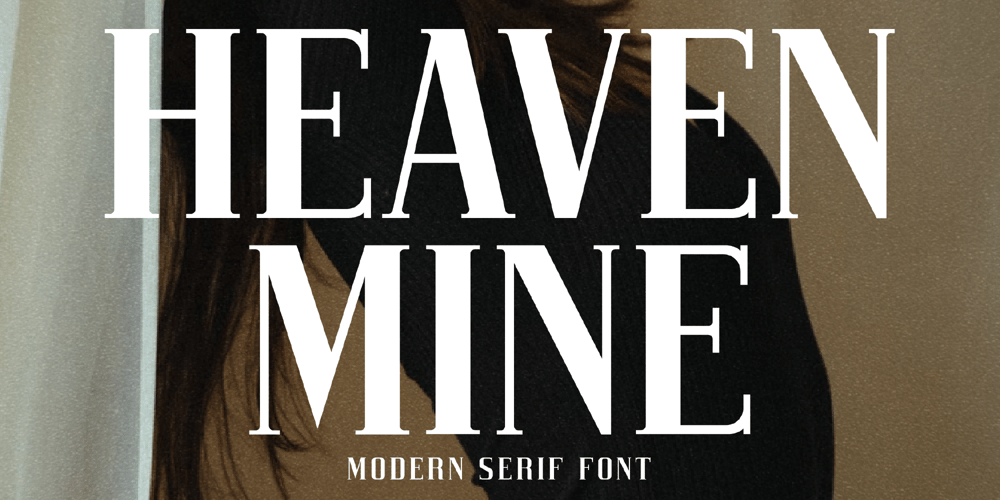
Heaven Mine
Heaven Mine font
Heaven Mine Font Family was designed by Heru Utama Putra and published by Letterena Studios. Heaven Mine contains 2 styles and family package options. Heaven Mine is a classic serif font with a unique style and modern look. It is perfect for elegant and luxury logos, book or movie title design, fashion brands, magazines, clothes, lettering, quotes, and much more. Add it to any of your creative projects, and you will be amazed by the results.